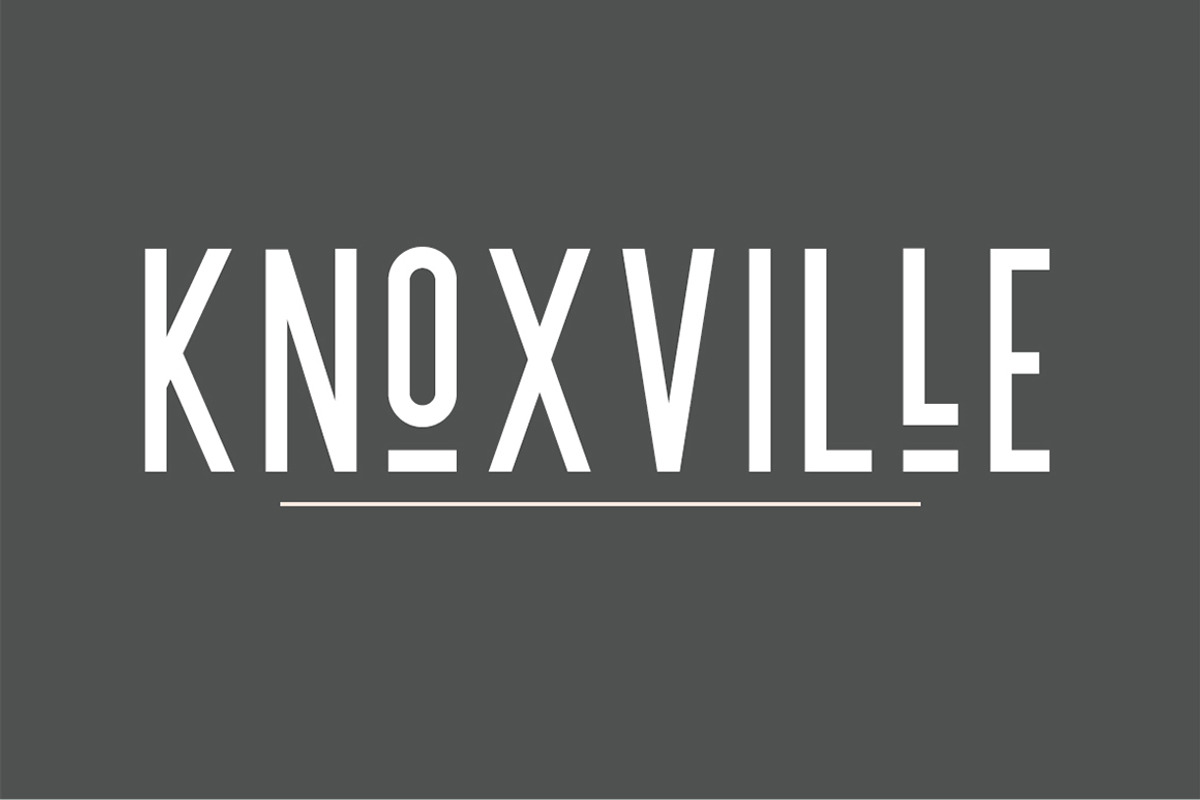
Knoxville | A Logo Creating Font
Knoxville is a beautiful sans serif that makes logo creation easy! Simply use your lowercase letters to enable underlined letters, creating contrast and interest in your logos. Each lowercase letter retains the same stroke width of the capital letters, eliminating the risk of it looking inconsistent from letter to letter. It even looks great on its own with all-caps (sample image 4)!
- Uppercase letters
- Underlined letters via lowercase
- Numbers + punctuation